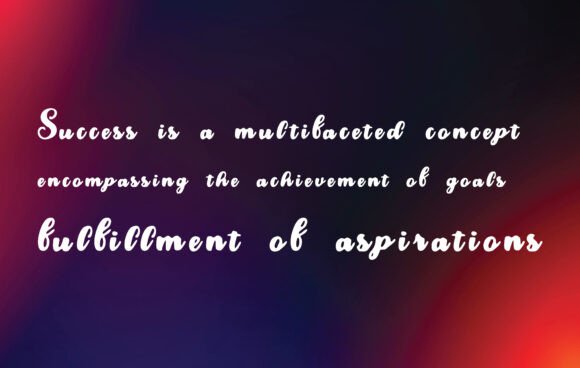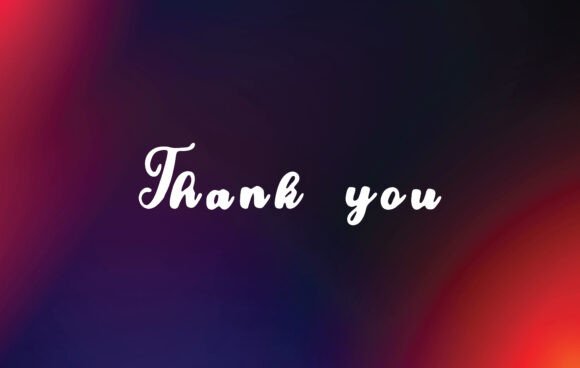
Introduction to Jeremias Font
Have you ever stared at a blank page, waiting for inspiration to strike? It’s that moment of creative clarity when all the pieces come together, and a stunning design idea is born. For designers, this moment is invaluable – it’s the spark that sets their imagination ablaze. And what better way to bring that idea to life than with the perfect font?
Enter Jeremias Font, a beautiful and elegant handwritten font that’s sure to elevate your creative projects to new heights. With its high-quality design and versatility, Jeremias Font is the perfect resource for designers looking to create eye-catching logos, branding, and quotes. Whether you’re working on a personal project or a client brief, this font is sure to deliver.
Key Features of Jeremias Font
- High-quality design resource ideal for creative projects, including logos, graphics, and typography.
- Designed with a focus on elegance and sophistication, making it a great choice for high-end creative projects.
- Perfect for use in digital design, including websites, social media, and advertising, as well as print design, including business cards and brochures.
Honest Review: Jeremias Font
As a designer, I’m always on the lookout for high-quality design resources that can elevate my creative projects. Recently, I stumbled upon the Jeremias Font, and I must say it’s been a game-changer.
Here’s what I love about the Jeremias Font:
- ✨ Its sleek and modern design makes it perfect for a wide range of creative projects, from branding to editorial work.
- ✨ The font is highly legible, even at small sizes, making it ideal for digital use.
- ⚠️ The font is a bit on the heavier side, so it may not be suitable for projects that require a lot of text.
- ⚠️ There are limited language support options, which may be a concern for designers working on international projects.
The Jeremias Font is ideal for use in creative projects such as:
- Typography projects
Tips for Getting the Most Out of Jeremias Font
To get the most out of the Jeremias Font, use it in conjunction with other high-quality design resources, and experiment with different font sizes and styles to achieve a unique look.
Alternatives to Jeremias Font
Great Vibes Font is a high-quality, cursive script font perfect for creative projects requiring a touch of elegance. It features a transparent background, making it ideal for design elements with complex backgrounds. Great Vibes Font is free to download and can be used for both personal and commercial projects.
Compared to Jeremias Font, Great Vibes Font has a more flowing and organic feel, making it suitable for projects that require a softer, more whimsical touch. However, Jeremias Font has a more modern and edgy feel, making it ideal for contemporary and minimalist designs.